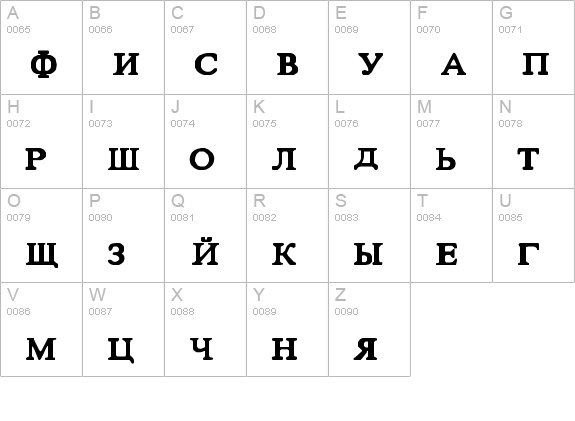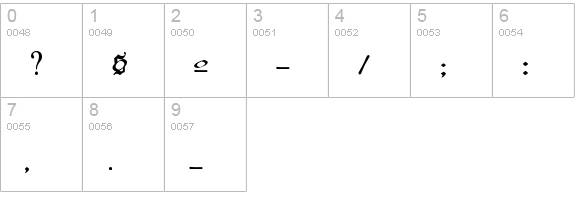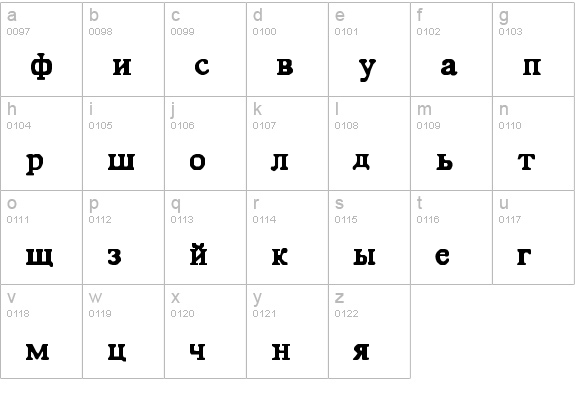
HTEBasicCyrilli Font Details
The HTEBasicCyrilli font is a stylish and versatile typeface that combines classic elegance with a modern twist. Designed with Cyrillic characters in mind, this font is perfect for projects that require a touch of sophistication and uniqueness. Its clean lines and smooth curves make it a great choice for both digital and print designs. Best of all, HTEBasicCyrilli font is completely free to use and is available for download at FontsMarket.com. Whether you're working on a personal project or a professional design, this font is sure to add a touch of flair and creativity to your work. Don't miss out on the opportunity to enhance your designs with this beautiful and free font today!